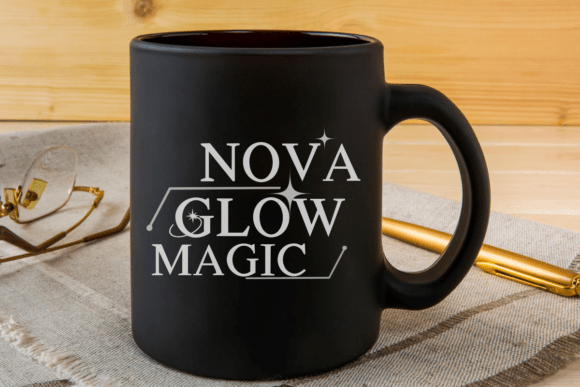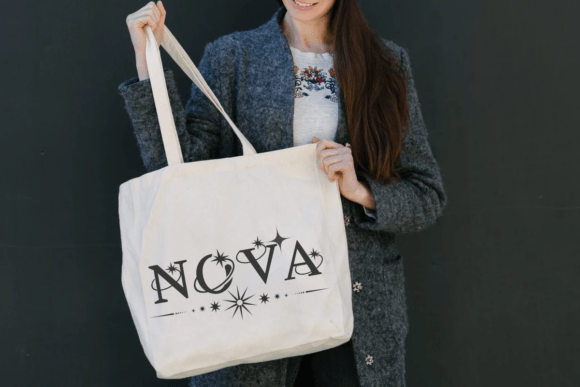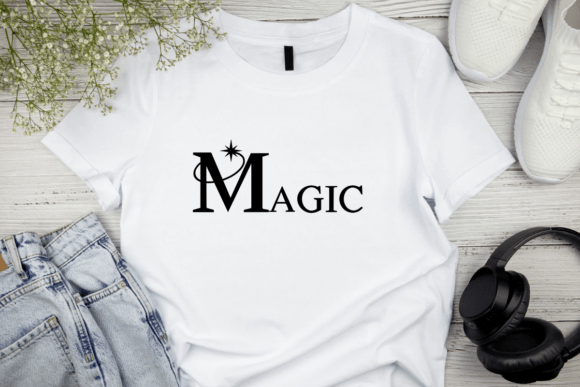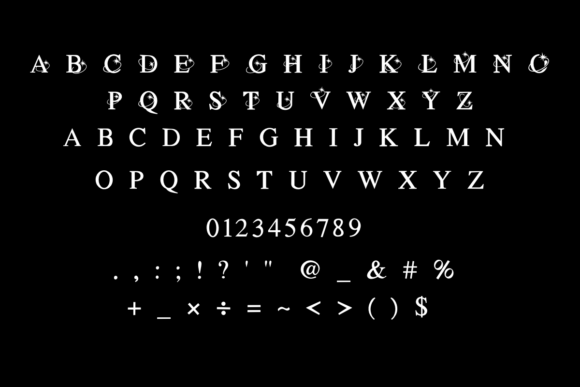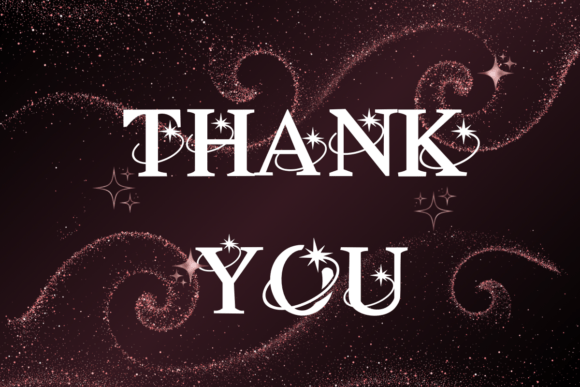
Introduction to Nova Glow Magic Font
Introducing Nova Glow Magic, a decorative typeface as versatile as the universe itself.
Its enchanting design adds a touch of whimsy to your note-taking endeavors, diary entries, and heartfelt greeting cards Infuse a magical aura into your creative pursuits – from crafting captivating banners and intriguing content, to adding a unique flair to mugs, t-shirts and stationery.
Key Features of Nova Glow Magic Font